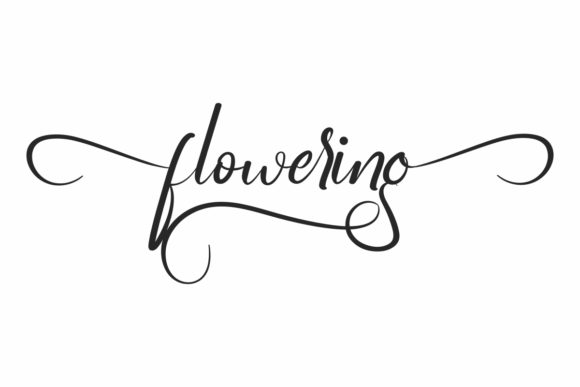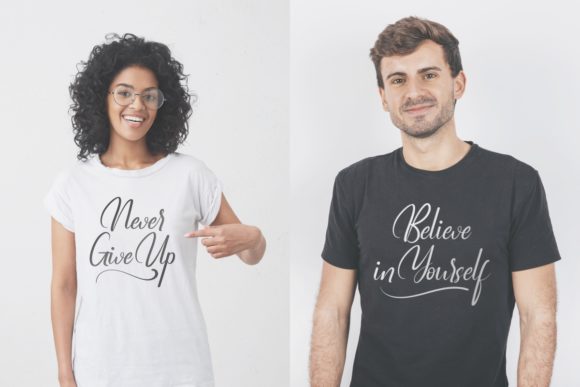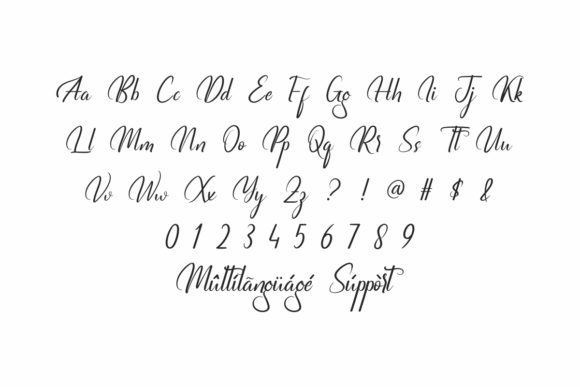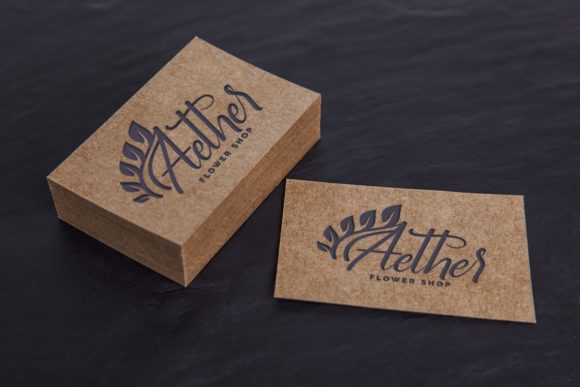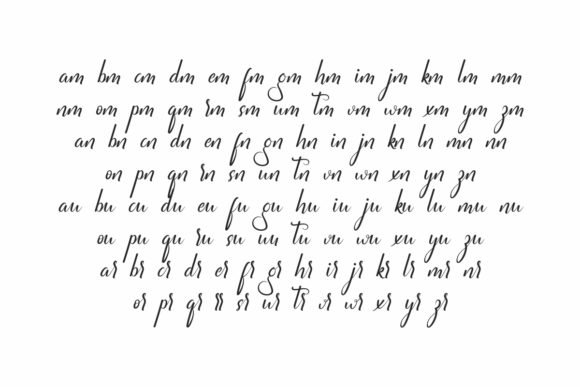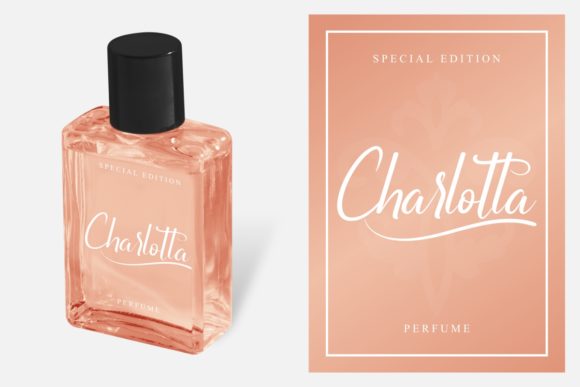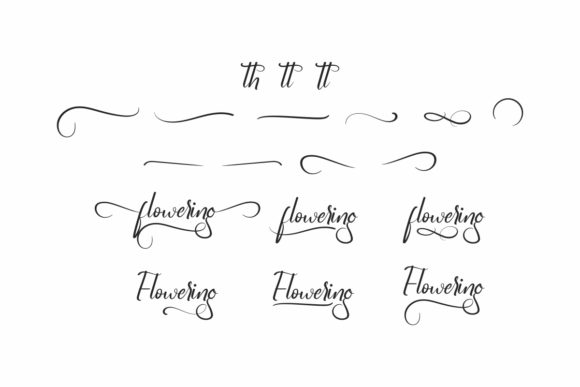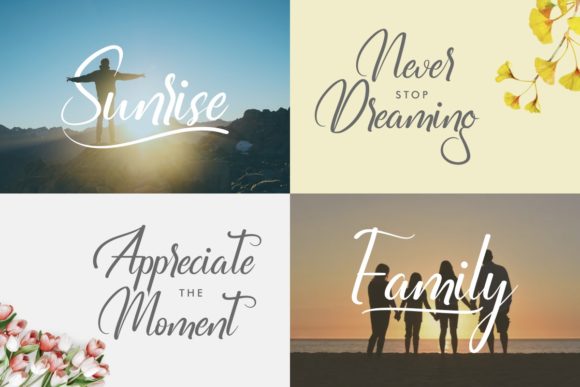
Flowering Font
About Flowering Font
Flowering is a one-of-a-kind handwritten font that exudes elegance and sophistication. Its distinct and graceful letterforms make it the perfect choice for designs that require a personalized touch. Whether you’re designing wedding invitations, thank you cards, greeting cards, logos, or any other project that calls for a unique and refined style, Flowering will exceed your expectations.
One of the standout features of Flowering is its versatility. It effortlessly adapts to various design styles and themes, making it suitable for a wide range of projects. The font’s flowing and delicate nature adds a touch of romance and charm to any design. Whether you’re aiming for a vintage-inspired look, a modern and minimalistic vibe, or something in between, Flowering will complement your vision flawlessly.
Wedding invitations and stationery are an ideal match for Flowering. The font’s elegant and personalized style enhances the beauty of these special occasions, creating a sense of sophistication and enchantment. Whether you’re designing save-the-date cards, wedding programs, or place cards, Flowering will set the tone for a memorable and romantic event.
Thank you cards and greeting cards also benefit from the unique charm of Flowering. Its graceful letterforms and refined details convey warmth and sincerity, making each card feel truly special and heartfelt. The font adds an extra touch of elegance to your expressions of gratitude or well wishes, making them even more memorable.
When it comes to branding and logos, Flowering stands out with its distinctive style. It adds a touch of sophistication and refinement to your visual identity, making your brand memorable and appealing. Flowering’s personalized and elegant nature captures attention and creates a lasting impression, helping your logo and branding materials stand out from the crowd.
Flowering is PUA encoded, which means you have easy access to all of the beautiful glyphs and swashes it offers. This gives you even more flexibility and creative freedom to customize and personalize your designs, ensuring they reflect your unique style and vision.
Embrace the beauty and elegance of Flowering and watch your designs come alive with its unique and personalized touch. From wedding invitations to logos, this font will elevate your projects and leave a lasting impression on your audience.